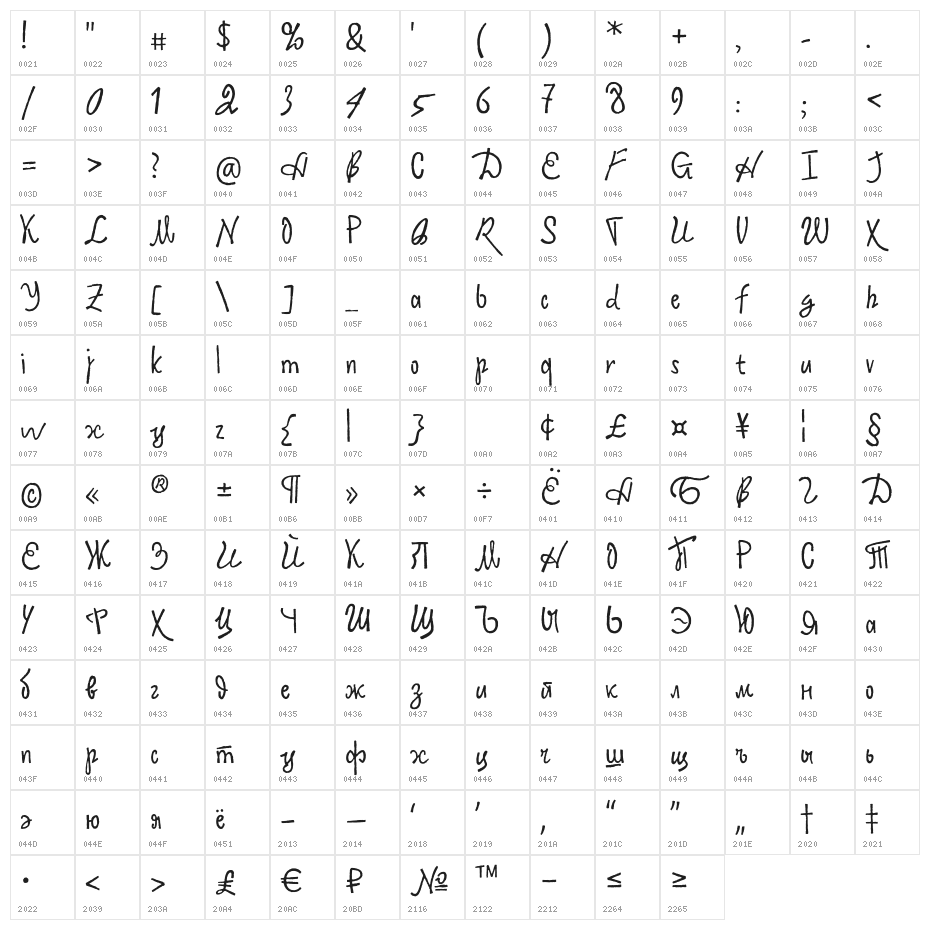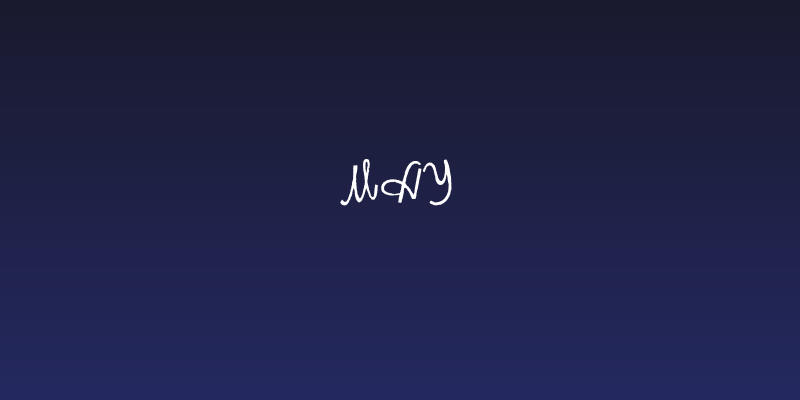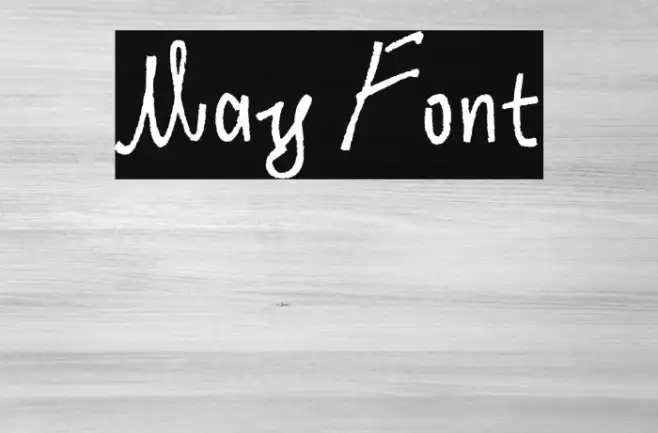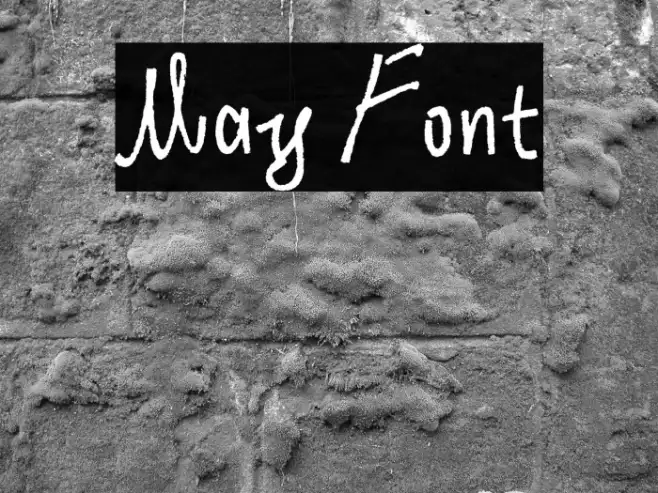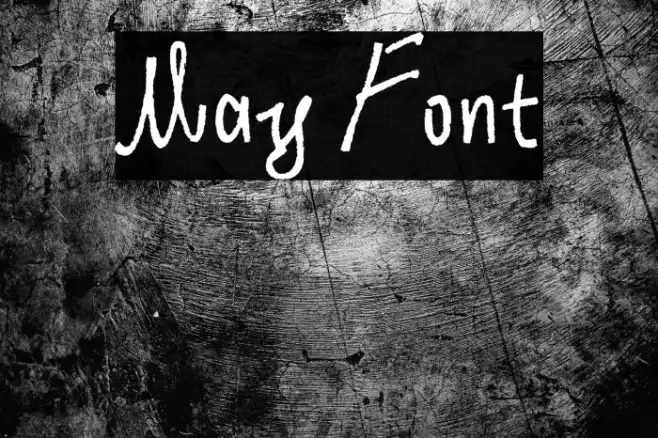
May Font
May Description
This font exhibits a playful and whimsical style, characterized by its irregular, hand-drawn appearance. The letters have a casual, informal feel, with varying stroke widths that add to its dynamic and lively nature. The uppercase letters are bold and slightly slanted, while the lowercase letters maintain a consistent flow, enhancing the font's overall charm. The numerals are equally expressive, with unique curves and angles that complement the alphabet. Special characters are creatively designed, maintaining the font's cohesive aesthetic. This font is ideal for projects that require a personal touch or a sense of creativity and spontaneity.
| Proposed Projects | Great for greeting cards, children's books, creative posters, and artistic branding. |